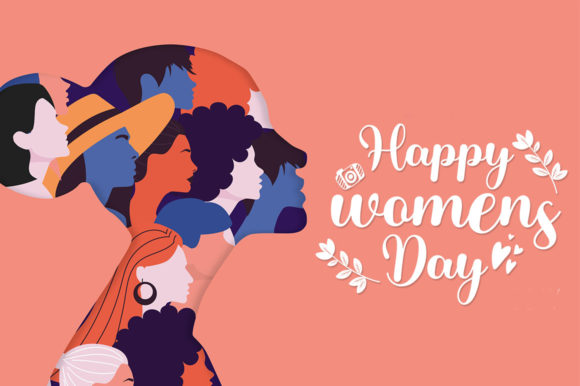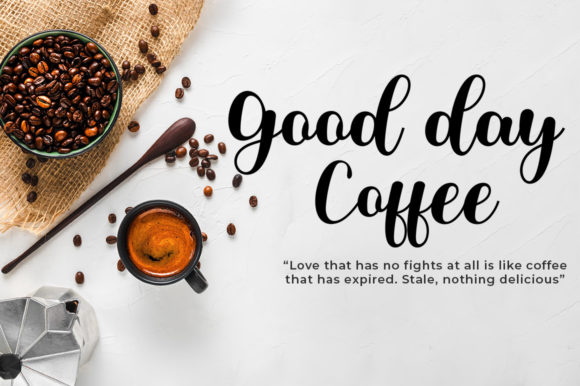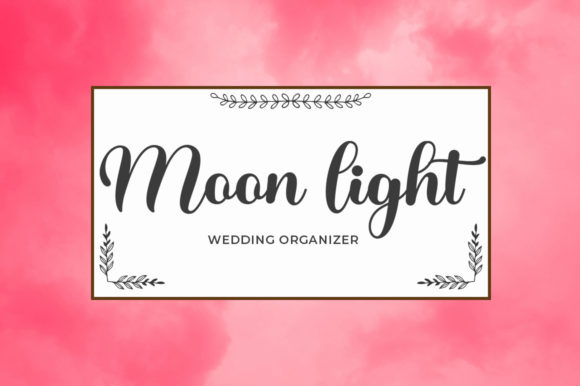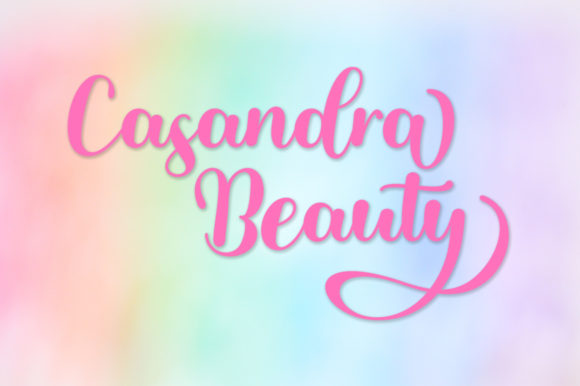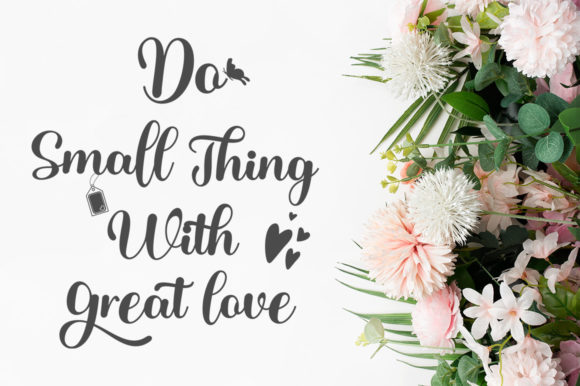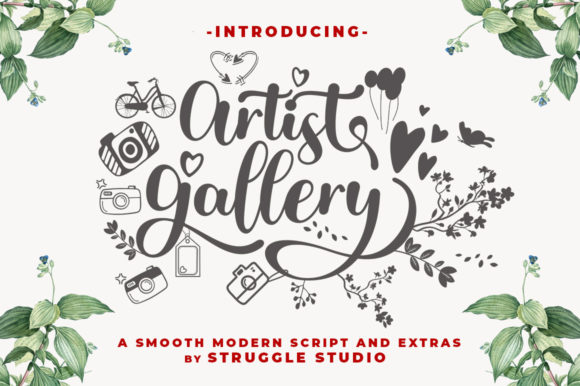
The Elegance of Artist Gallery Font: A Designer’s Delight
Have you ever been in the middle of a design project, and suddenly, you’re stuck on finding the perfect font? I recall a recent experience where I was working on a branding project for a luxury client, and my designer brain just couldn’t settle on a typeface that exuded both elegance and modernity. That’s when I stumbled upon the Artist Gallery Font – a game-changer for any design project!
A Balanced Beauty: First Impressions
The Artist Gallery Font is described as an elegant script font with a contemporary atmosphere and impeccable form, inspired by timeless classic calligraphy. And trust me, it delivers! Not too thin and not too thick, this font strikes a perfect balance, offering varied strokes that add a touch of sophistication to any project. Its design ensures that it remains legible and beautiful, whether you’re working on a logo, a brochure, or a website.
- ✨ Elegant and modern feel, perfect for luxury brands
- ✅ Highly legible, even at smaller sizes
- 🎨 Versatile – great for both digital and print projects
While the Artist Gallery Font is incredibly versatile and beautiful, there are a few minor considerations:
- ⚠️ It might not be the best fit for very casual or playful projects, as it leans more towards elegance and sophistication.
- 🤔 Some of the more intricate details may get lost at very small sizes or when used in certain contexts, like on billboards or large signage.
The Story Behind Artist Gallery Font
While the exact origins of the Artist Gallery Font might not be well-documented, it’s clear that it was crafted with a deep appreciation for classic calligraphy and a vision for modern design. The creator aimed to produce a font that was not only beautiful but also versatile, catering to designers’ needs for both elegance and legibility.
Q: How does the Artist Gallery Font compare to similar script fonts?
A: It stands out for its balanced strokes, modern feel, and impeccable form. While similar fonts might offer more playfulness or formality, Artist Gallery strikes a unique balance.